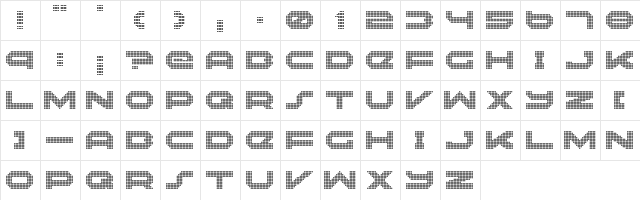
Neonize Regular
| Designer | cablecomputer |
Design Context for Neonize Typeface
Neonize channels digital-age aesthetics through its sharp, structured letterforms — ideal for brands that want to signal innovation.
Pro Tip: Use Neonize in combination with a neutral sans for body text. Let it define the brand voice in headlines while keeping reading comfortable elsewhere.